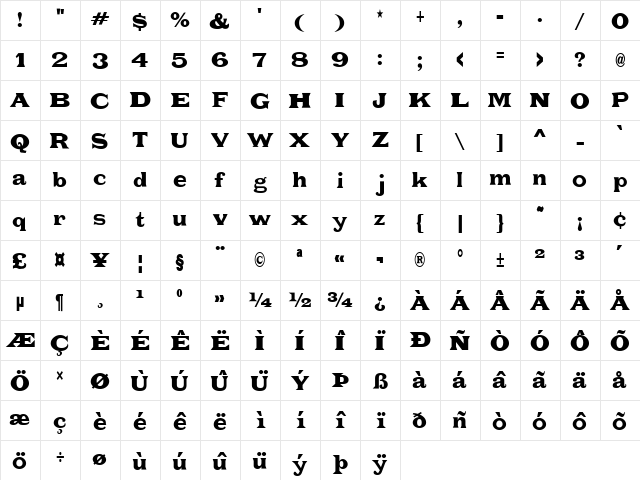
Fat Legs Semi-expanded Heavy
| Designer | George Herbert Hirst and Wilfred Rhodes |
Design Context for Fat Legs Typeface
Fat Legs offers clean, dependable letterforms without strong stylistic allegiance, making it a practical choice for designers who need flexibility.